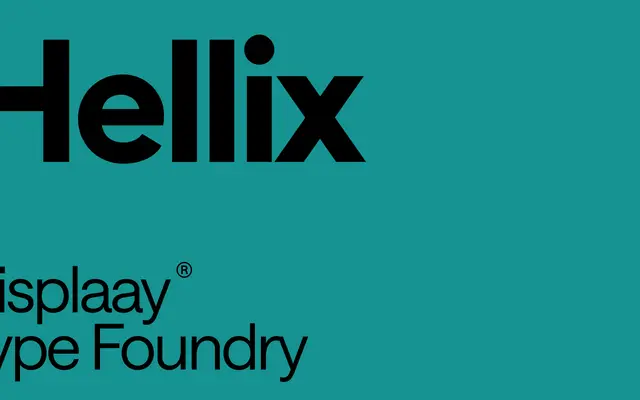
A geometric sans built on pure geometry with open terminals and sharp stroke connections, available in eight weights with matching italics and a variable font across weight and slant axes.
Hellix runs sixteen styles across eight weights from Thin to Black, each with a paired italic. The design is anchored in pure geometric construction with open terminals and sharp junctions, giving it a crisp, modern character suited to editorial and branding contexts. A variable font with weight and slant axes rounds out the collection.
Displaay describe Hellix as built on pure geometry with open terminals and sharp connections, placing it firmly in the geometric sans tradition alongside its variable font axes for weight and slant.